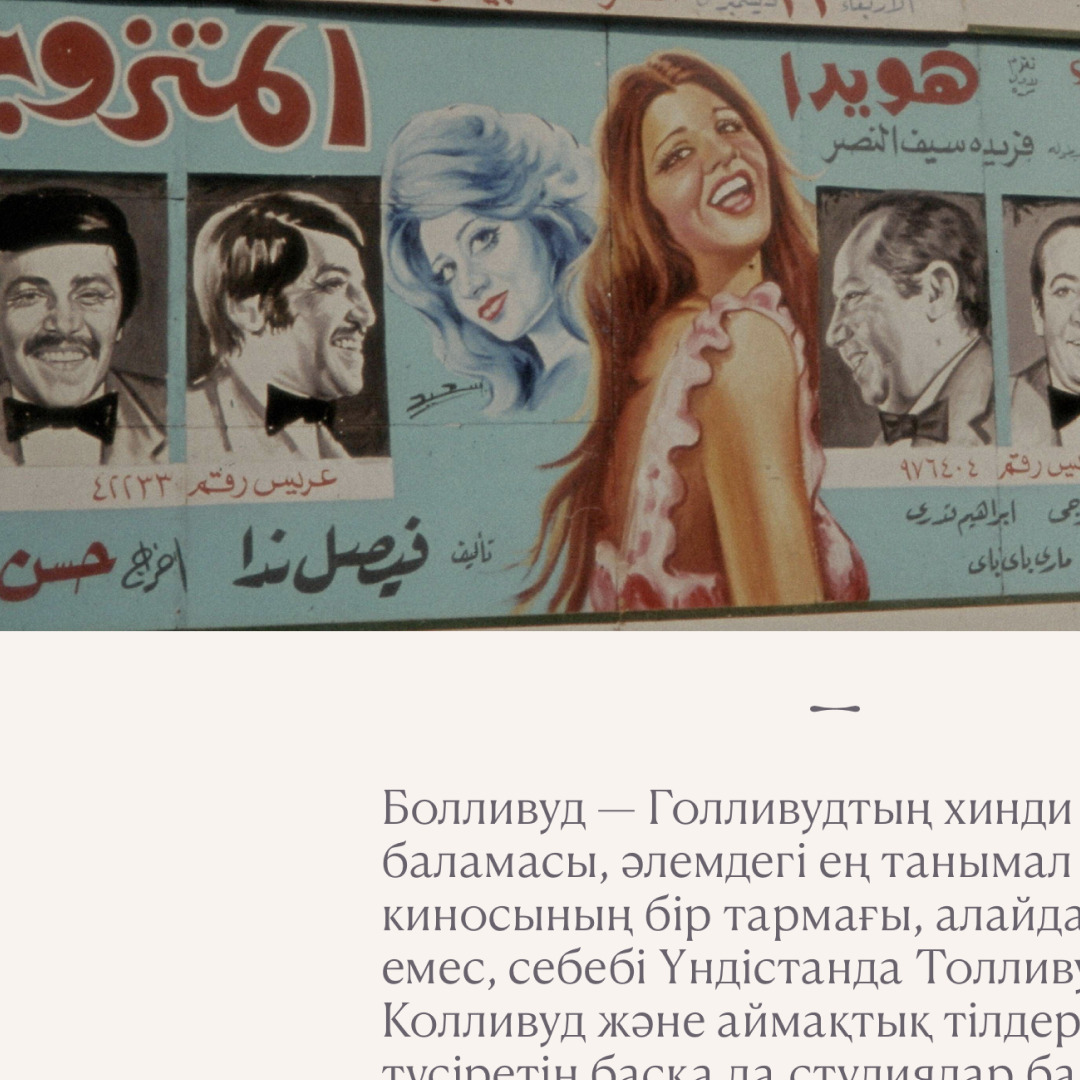
Qalam is a reed pen used for calligraphy, but also a new media showing the world history and culture as seen by people living in Central Asia. The publication is now available in Russian and Kazakh, but the team is planning to introduce the English language version soon as well. The titles on their website, which was created by Tuman studio, are set in Heather Type by Letterhead, CoFo Sans by Contrast Foundry is used for the buttons, and Canela Text by Commercial Type is applied to its body text.
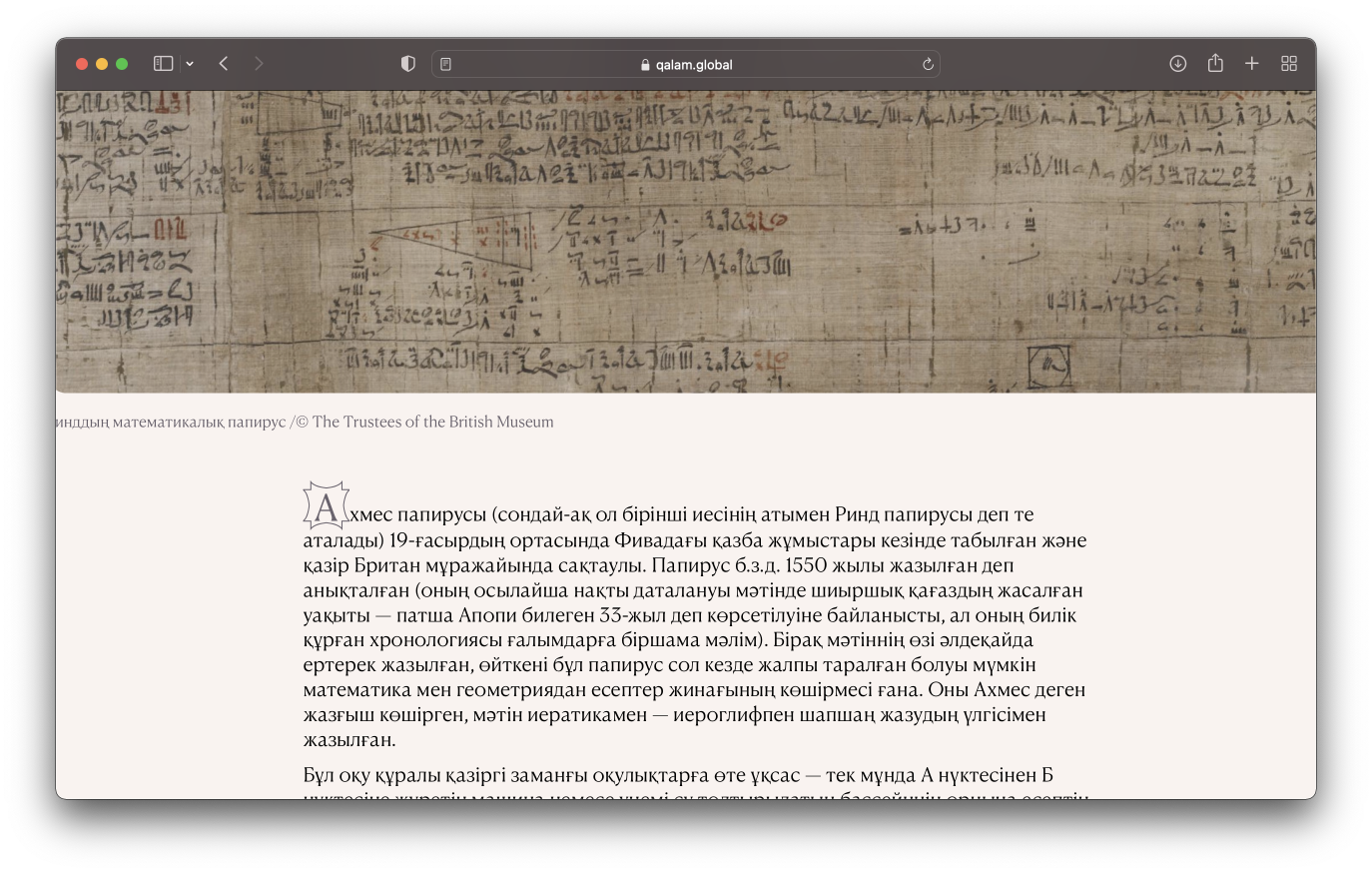
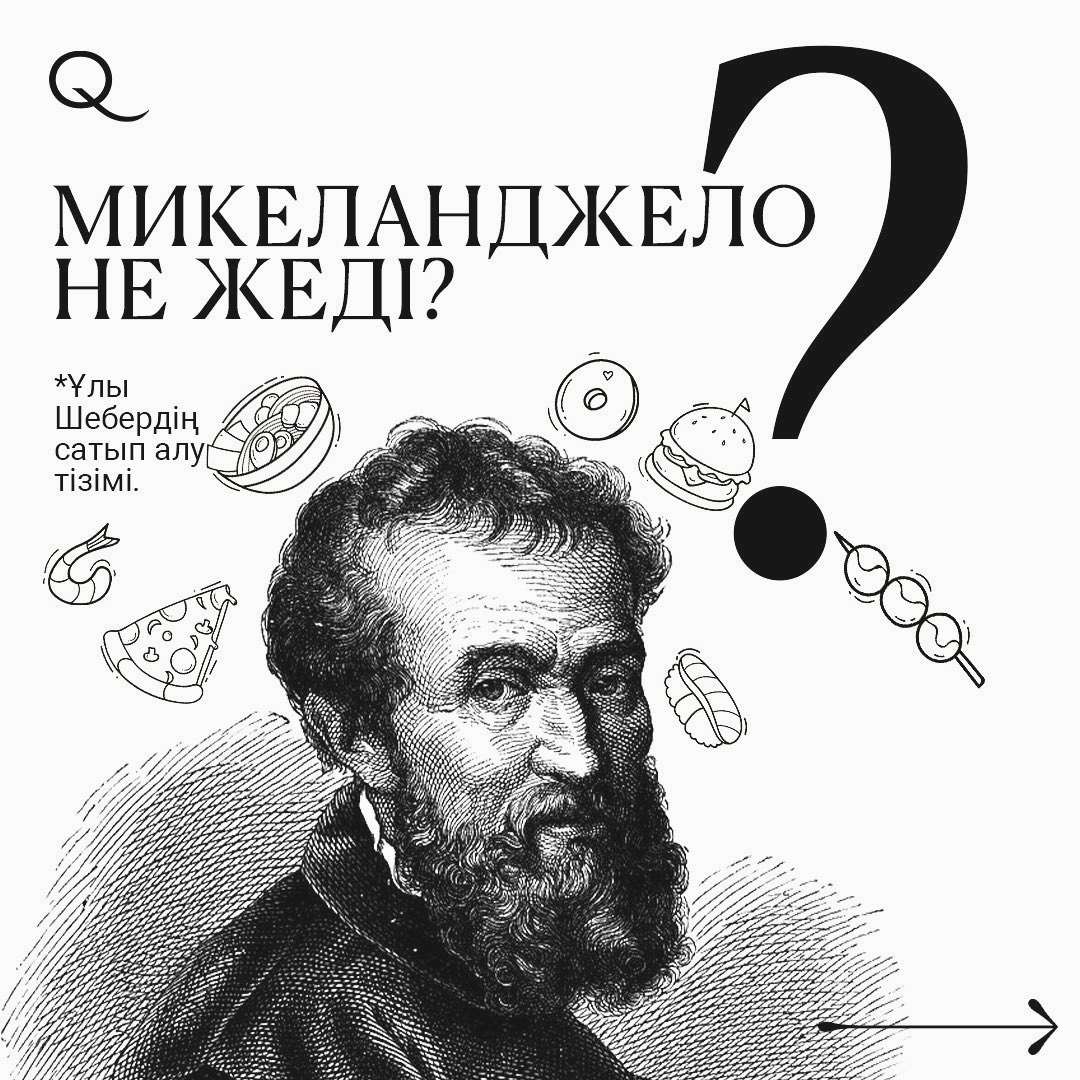
Canela is a collection of four families executed in three optical sizes. It includes display Canela and Canela Condensed, inspired by the American book covers of the 60s and the 70s, Canela Deck for subheadings (20–48 pt), and Canela Text (<20 pt).